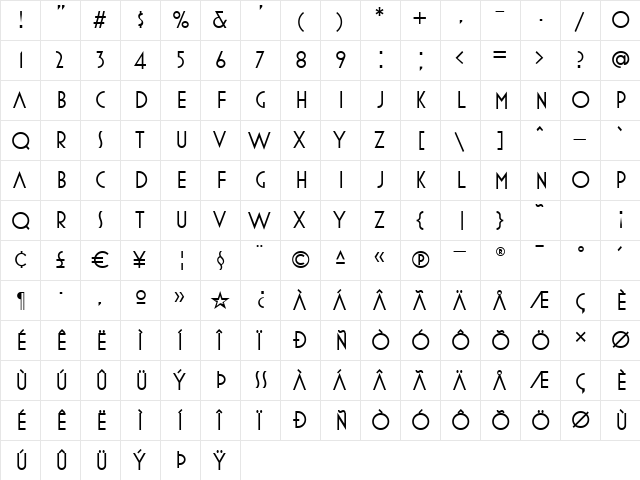
MostraThreeRegular Regular
Design Context for MostraThreeRegular Typeface
MostraThreeRegular takes a measured approach to typography — its balanced proportions and neutral character make it a reliable workhorse for both digital and print work.
Pro Tip: Use MostraThreeRegular in both headline and body roles to test its range before committing to a single application.